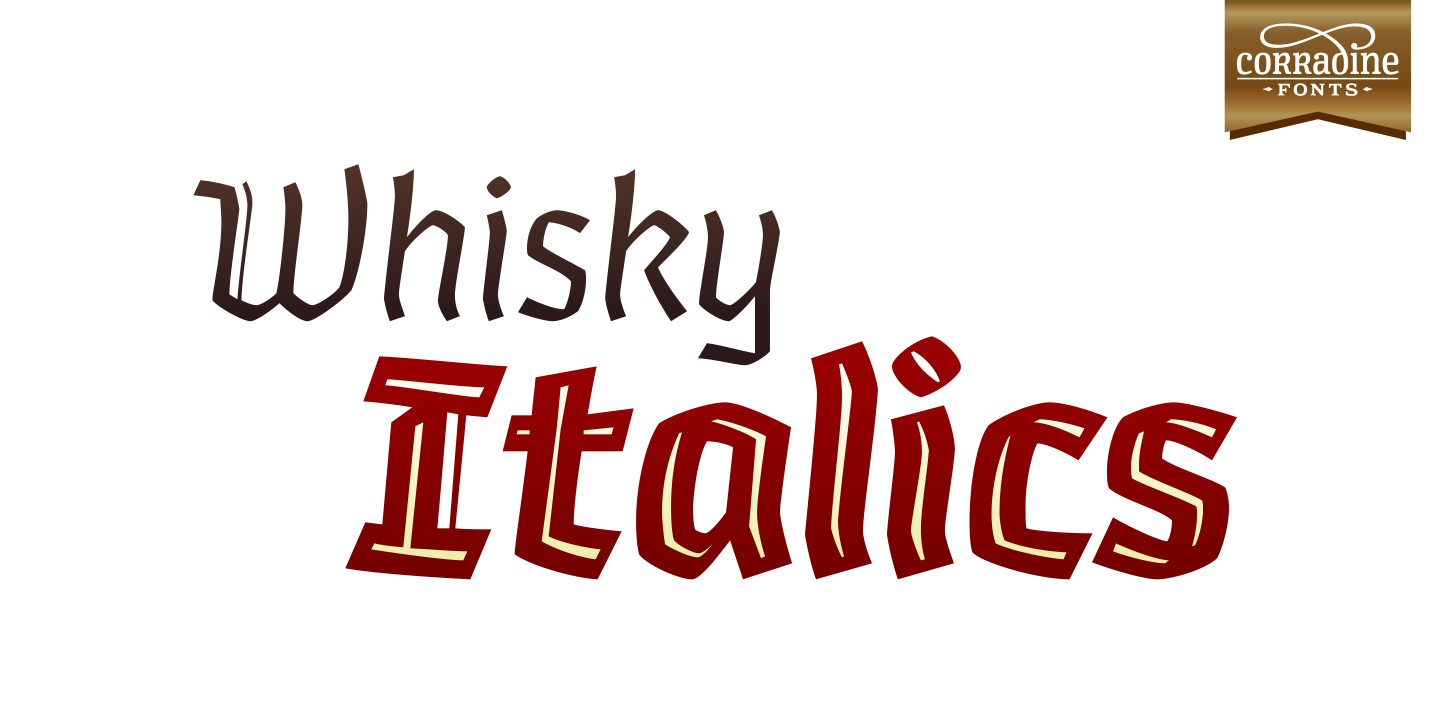
Whisky Italics Font is perfect for premium whiskey bottle labels, distillery branding materials, upscale bar menu designs, cigar lounge signage, gentleman's club communications, luxury liquor store displays, bourbon tasting event promotions, craft distillery logos, sophisticated cocktail bar branding, and high-end spirits advertising campaigns. This refined typeface brings authentic masculinity and premium spirit heritage to any design project celebrating fine liquor culture and sophisticated drinking experiences.
Whisky Italics Font is exciting because it captures the smooth sophistication and aged elegance of premium spirits through its flowing italic letterforms that suggest refinement and mature taste. The font's distinguished character and sophisticated slant evoke the craftsmanship of master distillers and the ritual of savoring fine whiskey, making it perfect for brands targeting discerning connoisseurs and sophisticated drinkers.
Whisky Italics Font family includes multiple weights and styles: Regular, Bold, Light, Medium, Black, Condensed, Extended, Vintage, Premium, and Aged variants. Each style maintains the distinctive sophisticated character while providing comprehensive options for creating elegant liquor branding and premium spirits communications that celebrate both traditional distilling heritage and contemporary drinking culture.
Whether you're designing for distilleries, upscale bars, or premium liquor brands, Whisky Italics Font Free Download delivers the refined sophistication that resonates with spirits enthusiasts and luxury drinking culture. This distinguished typeface combines traditional distilling heritage with modern elegance, making it essential for projects requiring both authenticity and premium appeal. The font's smooth presence ensures memorable impact in spirits and hospitality contexts.